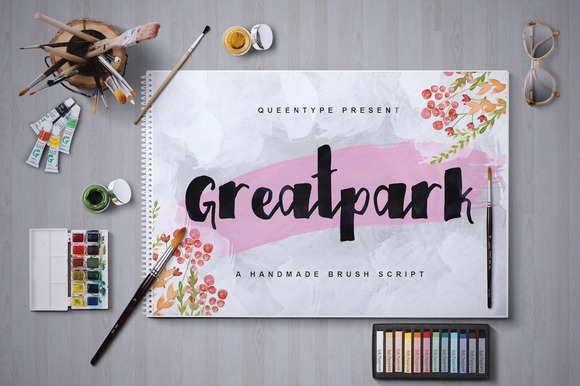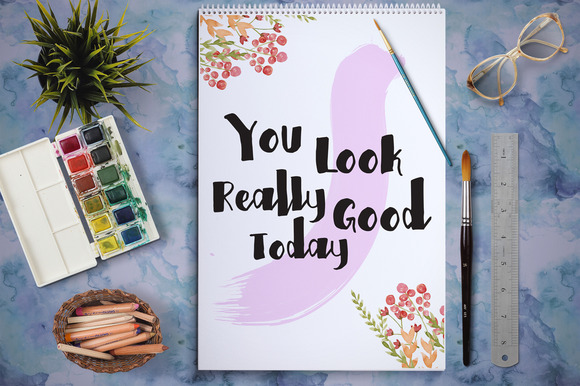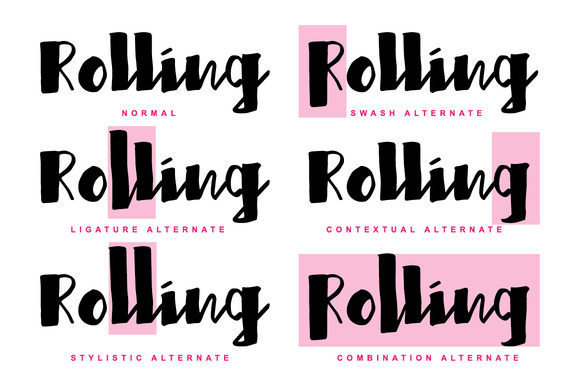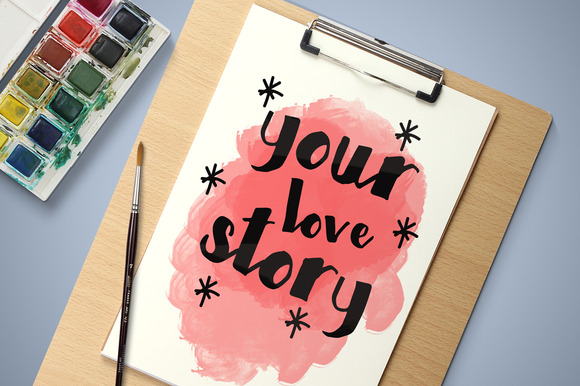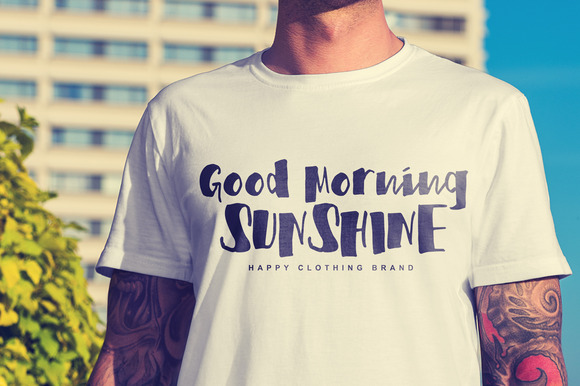
HomeScript FontsGreatpark Font Script Fonts Greatpark Font FacebookXPinterestWhatsApp Greatpark Font Poster 2 Greatpark Font Poster 3 Greatpark Font Poster 4 Greatpark Font Poster 5 About Greatpark Font Greatpark Typeface is a beautiful handmade brush script with a natural look. DOWNLOAD NOW People also explored Ruby Clown Font Shutter Braille Script Font Samantha Font Flowerina Font Vaneska Font Ellouise Font Seattrelion Font Amio Font Lovestorys Font 304 0 TagsGreatpark Font Previous articleHellena Script FontNext articleFalling Slowly Font LEAVE A REPLY Cancel reply Comment: Please enter your comment! Name:* Please enter your name here Email:* You have entered an incorrect email address! Please enter your email address here Website: Save my name, email, and website in this browser for the next time I comment. Personal Use Free Qiwqiw Personal Use Free Read more about this font DangeRNighT Font Personal Use Free Read more about this font Makcex Personal Use Free Read more about this font Husky Stash Personal Use Free Read more about this font BLOG The 10 Best Handwriting Fonts to Add Personality to Your Designs 10 of the Best Handwriting Fonts for Adding Personality to Your Designs There will undoubtedly be no other better choice than handwriting fonts to give... Exploring Font Trends How to Install and Use Fonts on Windows, macOS, and Web Projects Where to Buy American Fonts Online in 2024